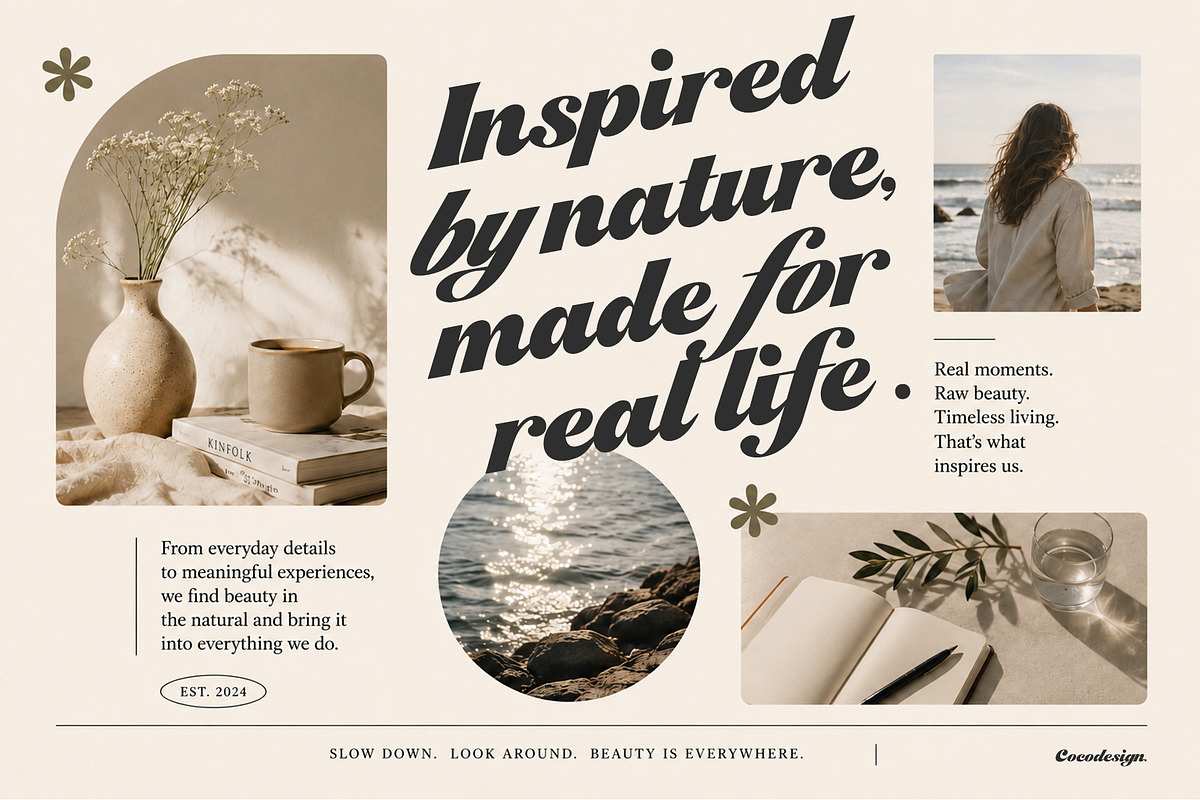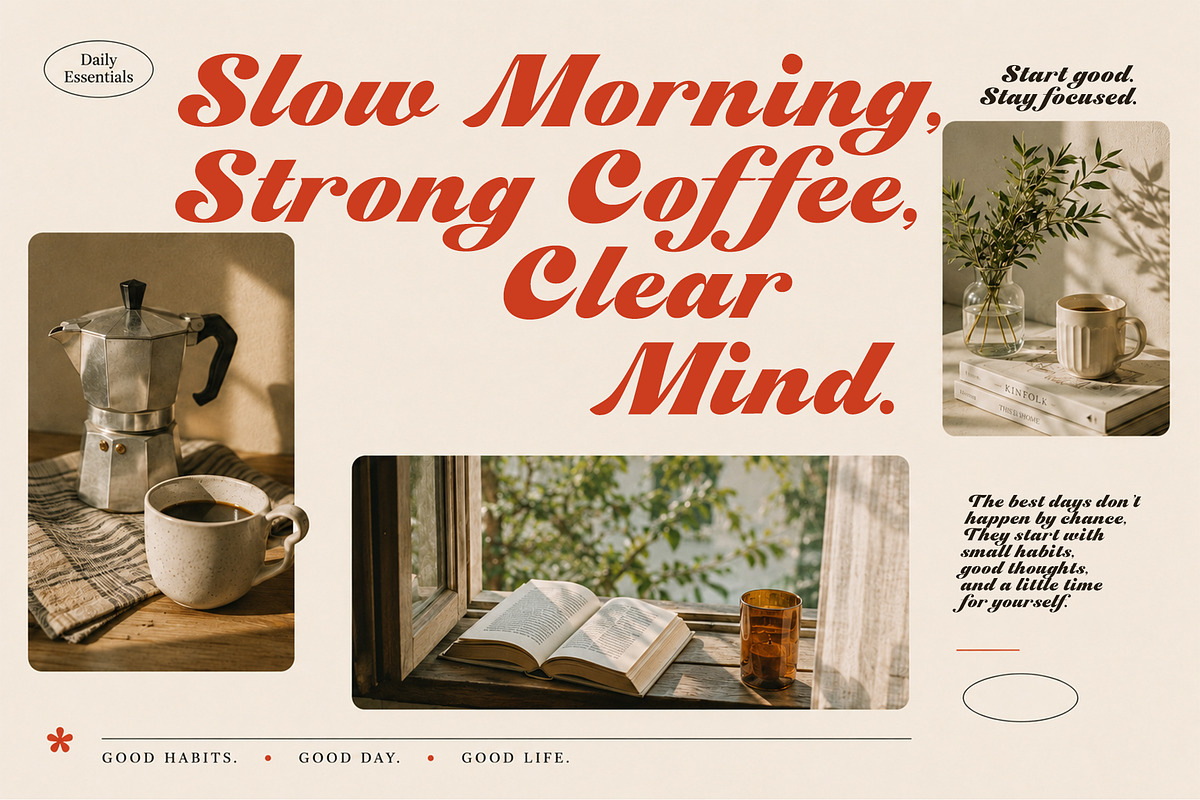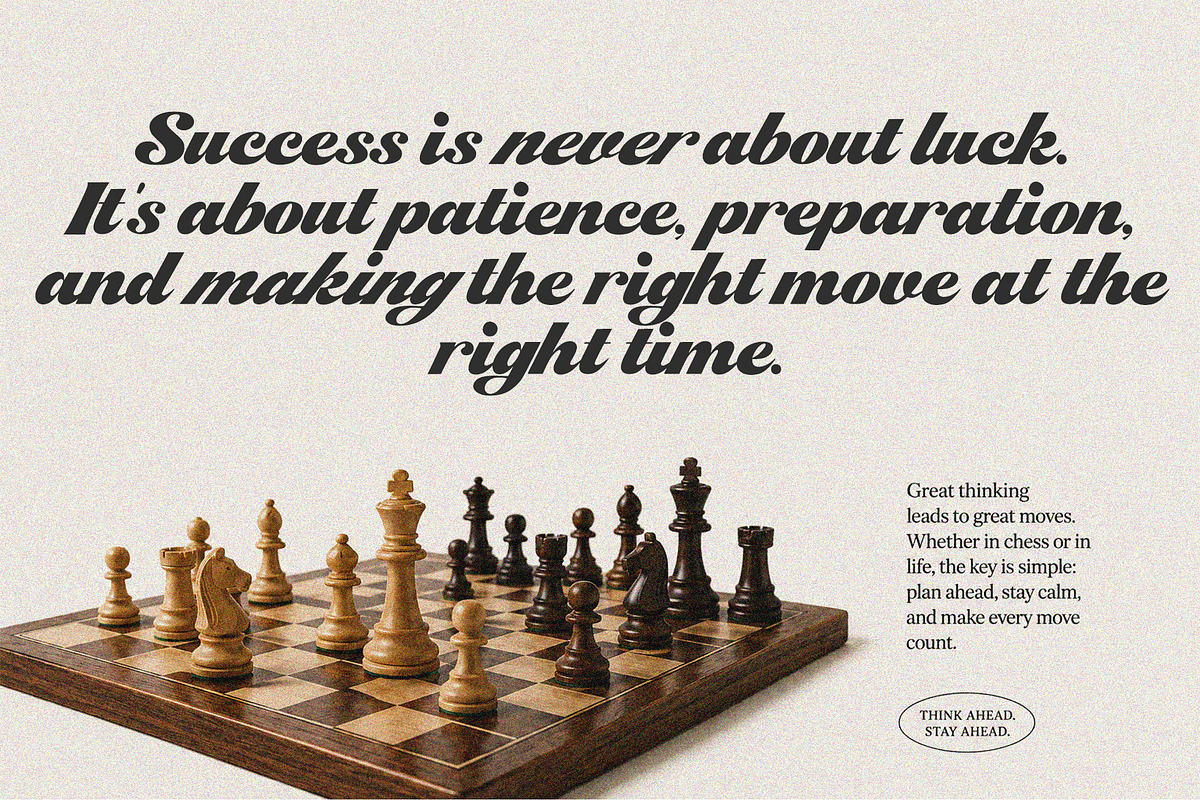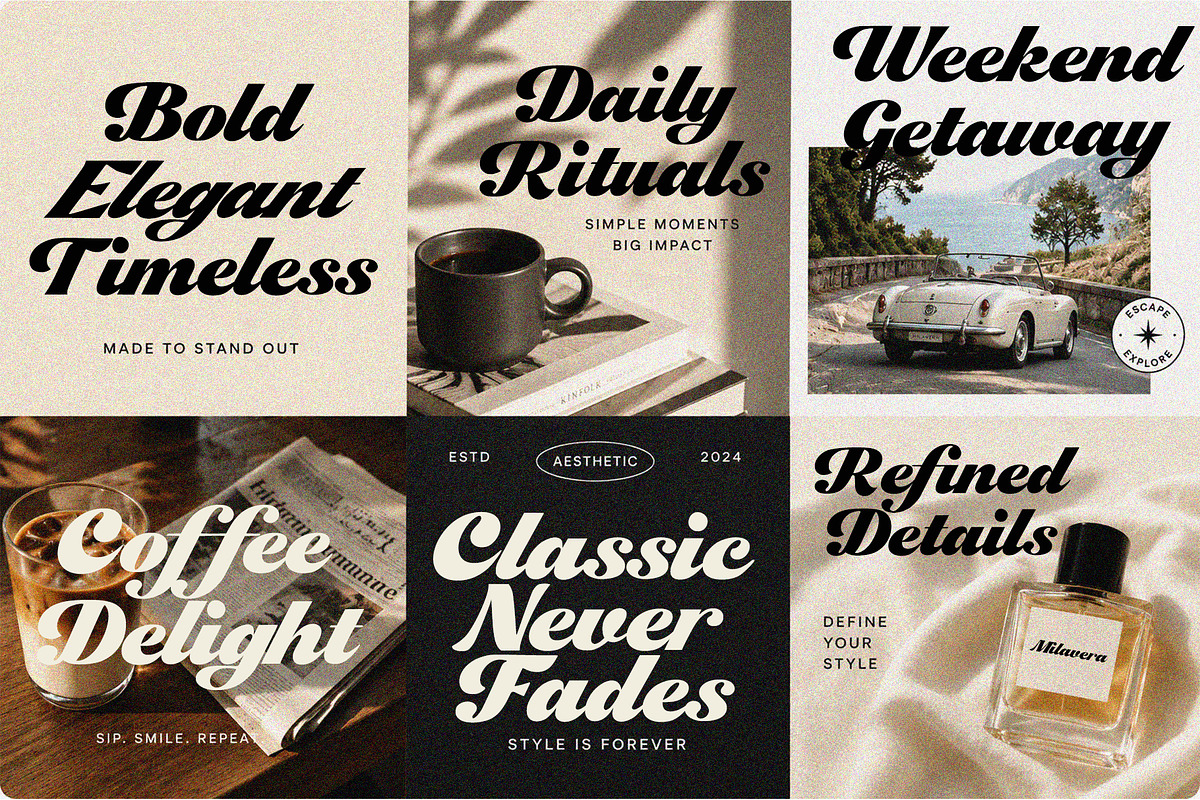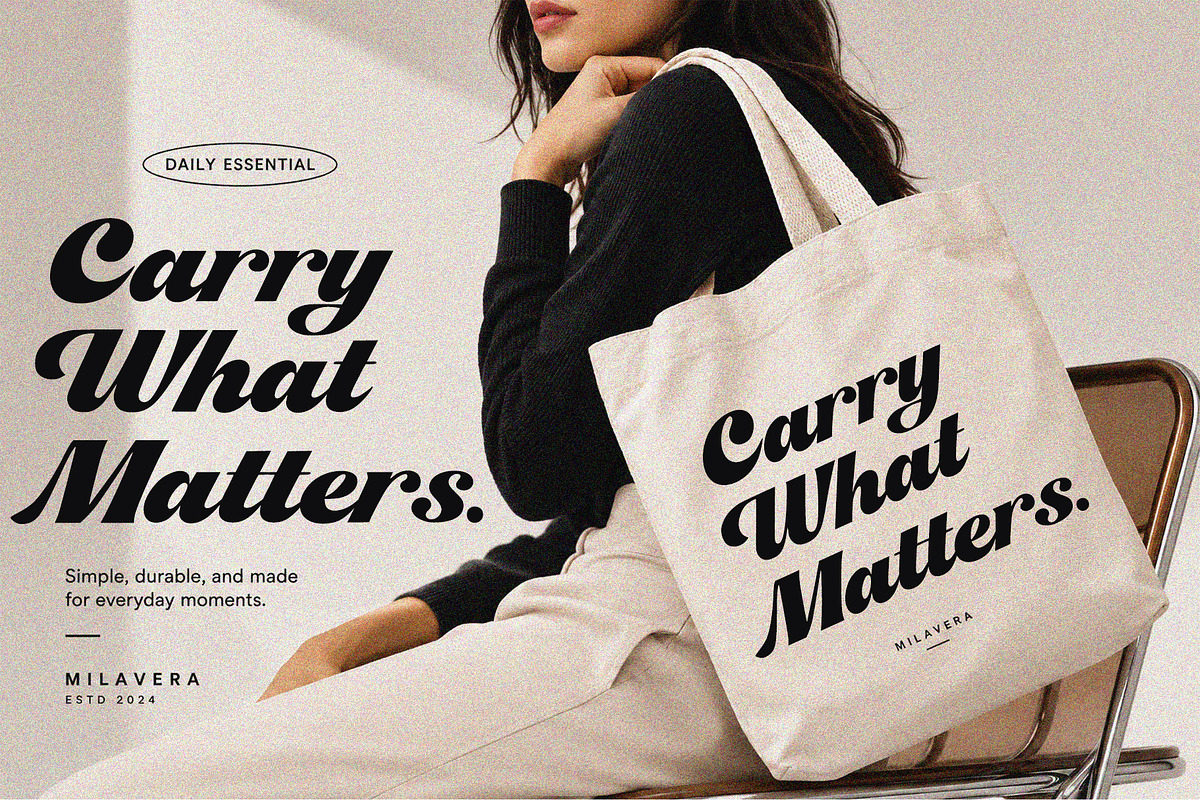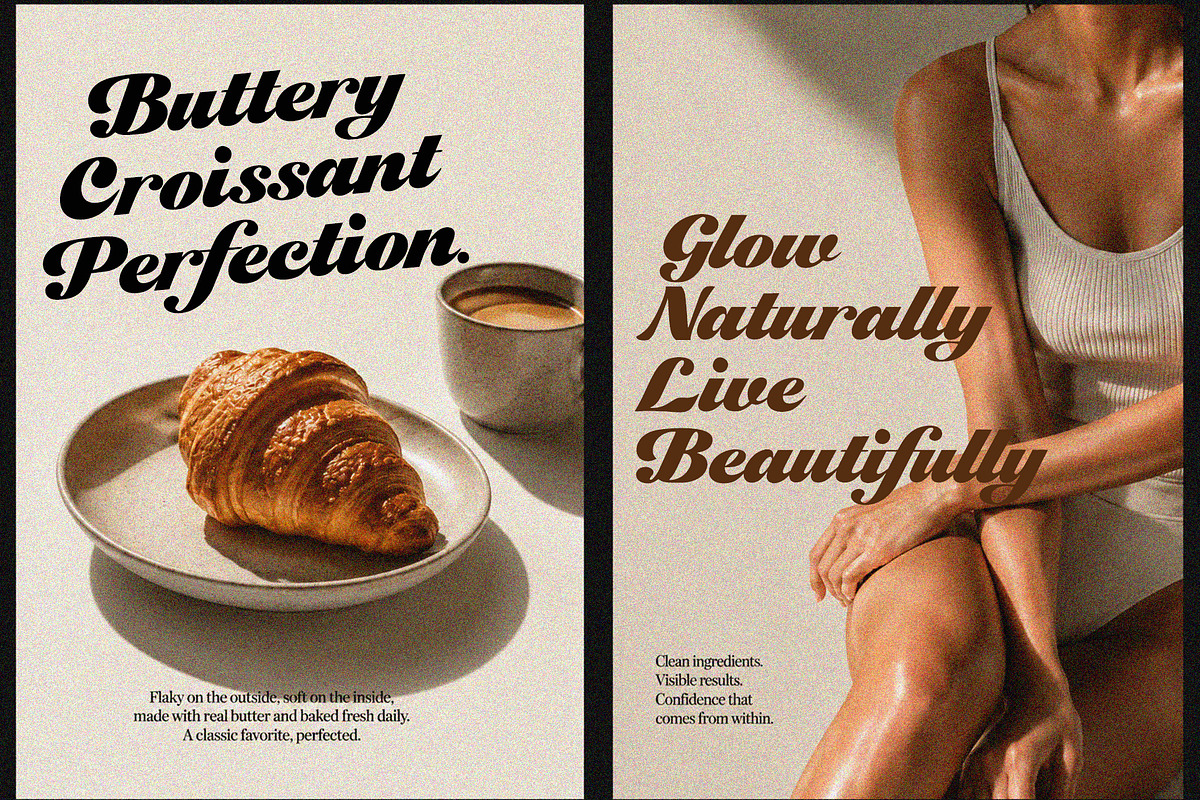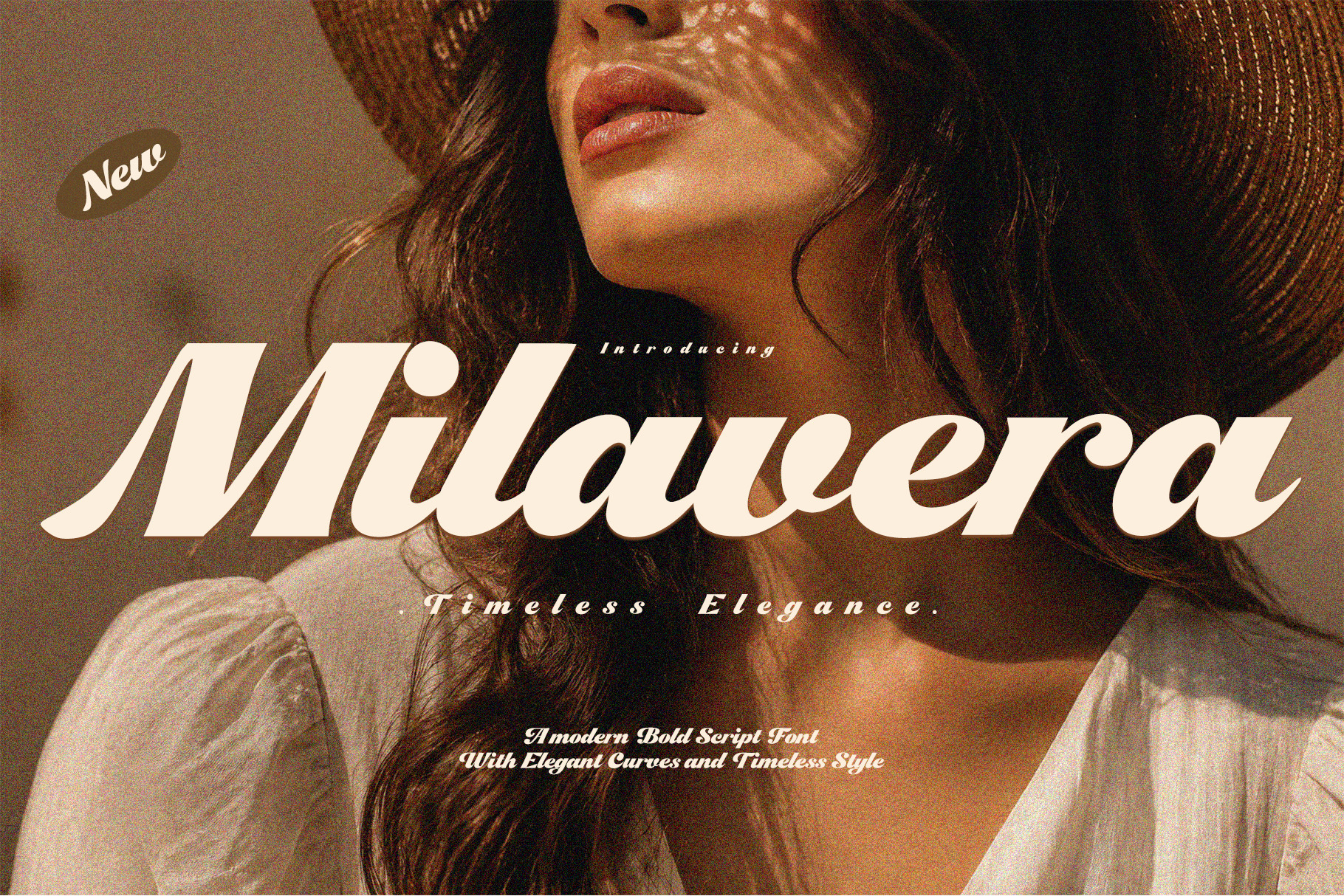
Milavera – Bold Script Font
Milavera is a bold script typeface that blends timeless elegance with a modern vintage touch. Designed with smooth flowing curves, confident strokes, and beautifully balanced letterforms, it delivers a sophisticated look while maintaining excellent readability.
Every character is carefully crafted to create a natural handwritten appearance, making each word feel stylish, graceful, and impactful.